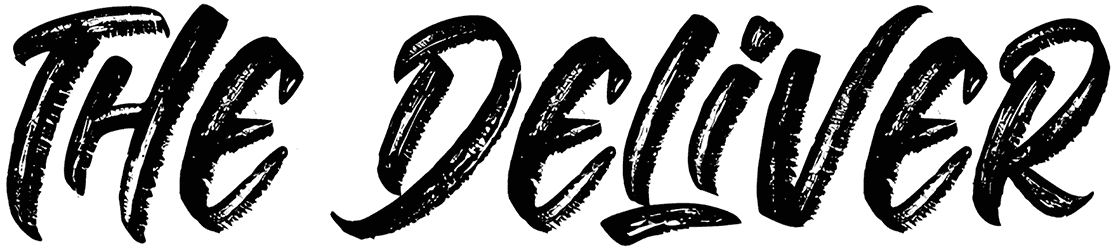
The Deliver Font
Designed bySubectype Orenari
“Talent is everywhere, the opportunity is not,” so you better not waste your time running a professional typography design. Here, a brush font with an inky style is at your service to make the most of it to provide cool headlines.